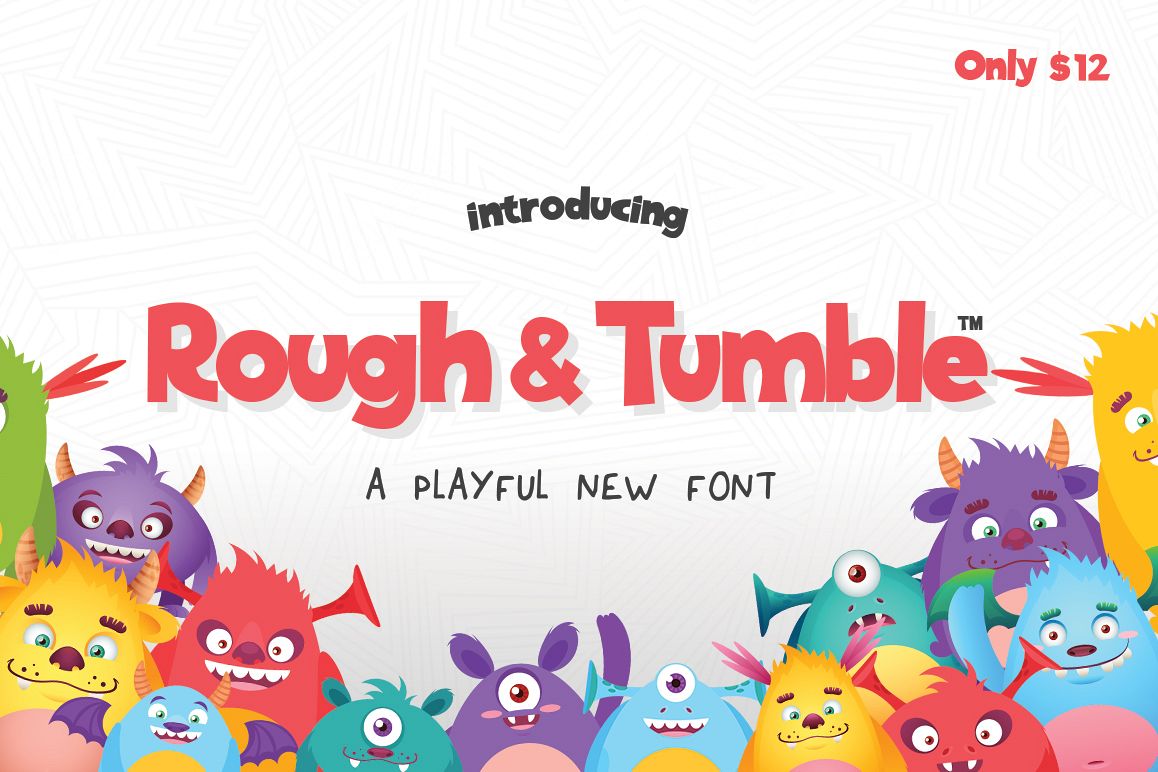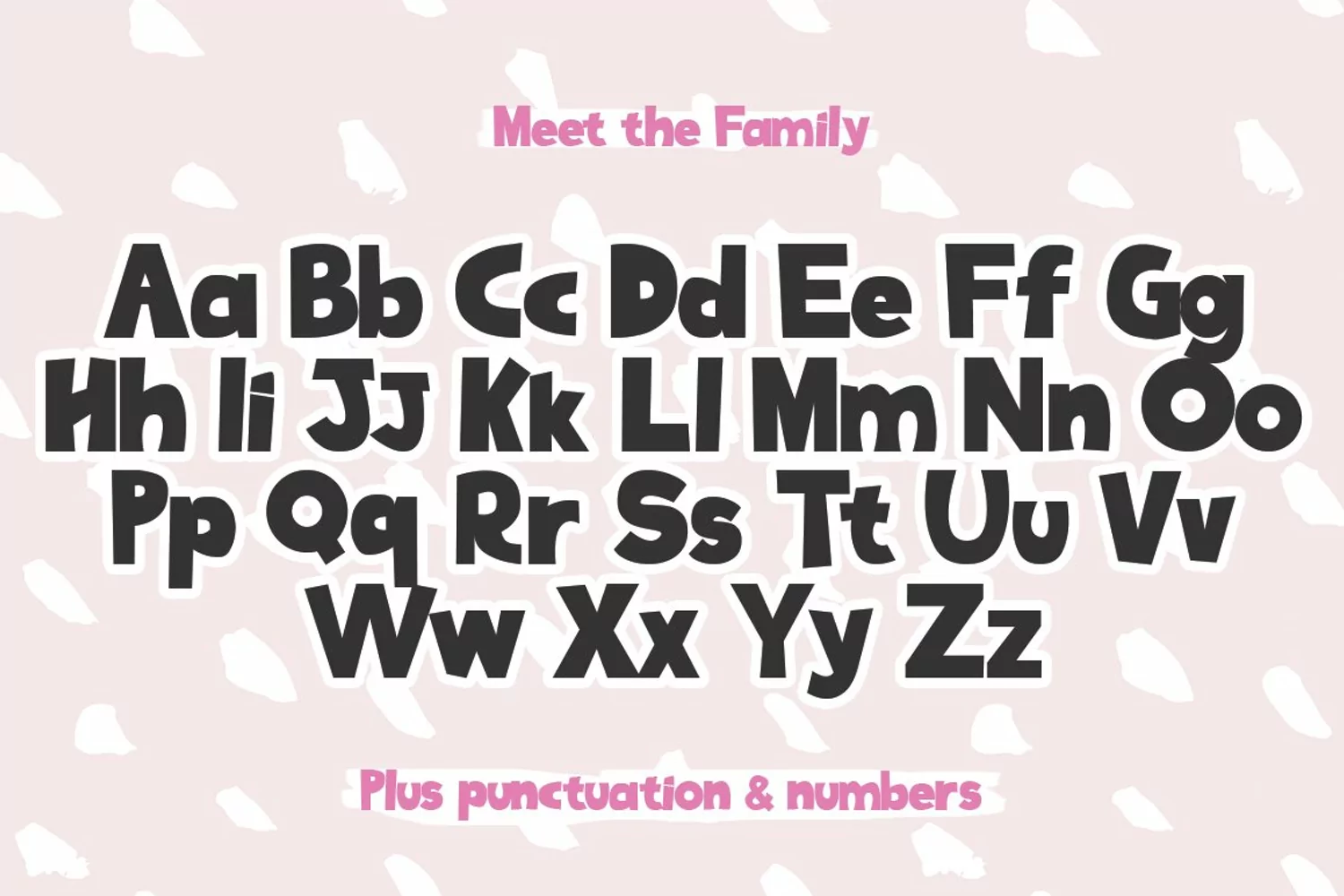
Rough and Tumble is an energetic new font. Fun and happy, it will lift your designs and add a cheeky touch. Perfect for kids books, cute quotes and so much more!Whats Included: